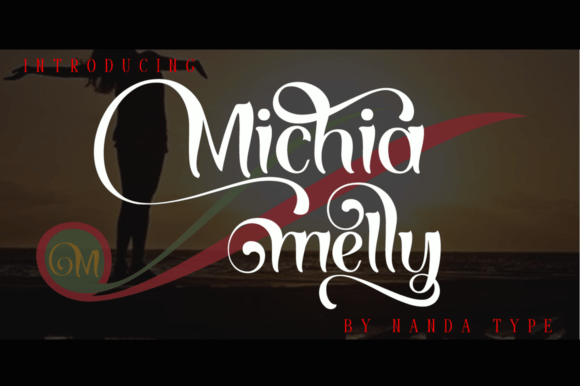
Michiamelly Font
Font Name : Michiamelly Font
Author : Nandatype
Unleash your creativity with Michiamelly Font, the enchanting serif masterpiece that will transform your magazine designs into captivating works of art.
Imagine your words dancing gracefully across the page, adorned with the exquisite curves and elegant strokes of Michiamelly. This font is not just a tool; it's a gateway to a world of boundless imagination, where every design becomes a breathtaking symphony of sophistication.
Michiamelly's allure lies in its versatility, seamlessly adapting to a myriad of magazine styles. Whether you're crafting timeless editorials, captivating cover stories, or alluring advertisements, this font will effortlessly elevate your designs to new heights.
Its carefully crafted glyphs evoke a sense of intrigue and allure, inviting readers to explore the depths of your creations. Each letterform is meticulously designed to capture attention and captivate imaginations, transforming your magazine into an unforgettable visual experience.
With Michiamelly Font, you'll harness the power to create magazine designs that resonate with readers on a profound level. It's more than just a font; it's an invitation to unleash your creativity and forge a lasting connection with your audience.
Join the ranks of discerning designers who have embraced Michiamelly Font as their secret weapon, elevating their magazine designs to the pinnacle of artistry. Unlock the limitless possibilities today and let your imagination soar!